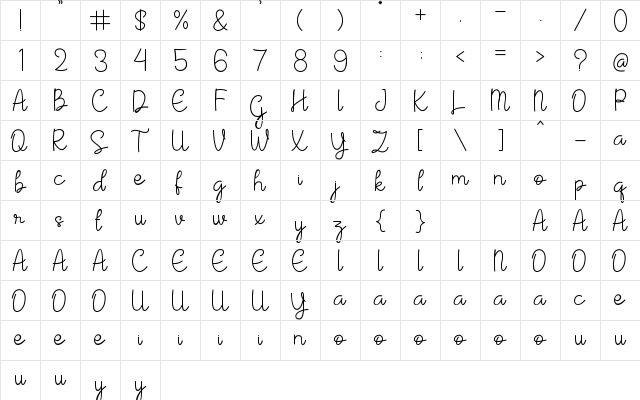
Raloria Regular
| Foundry | GilzType |
| Designer | Gilang Ramadhan |
Design Context for Raloria Typeface
Raloria is a composed and adaptable typeface that performs quietly and consistently across a wide range of design contexts.